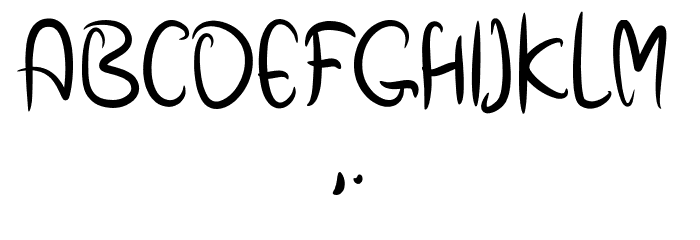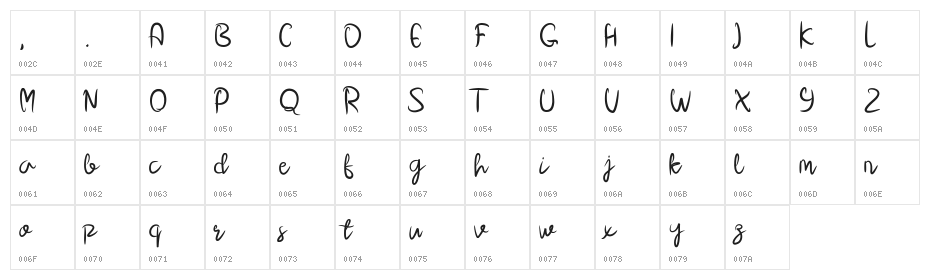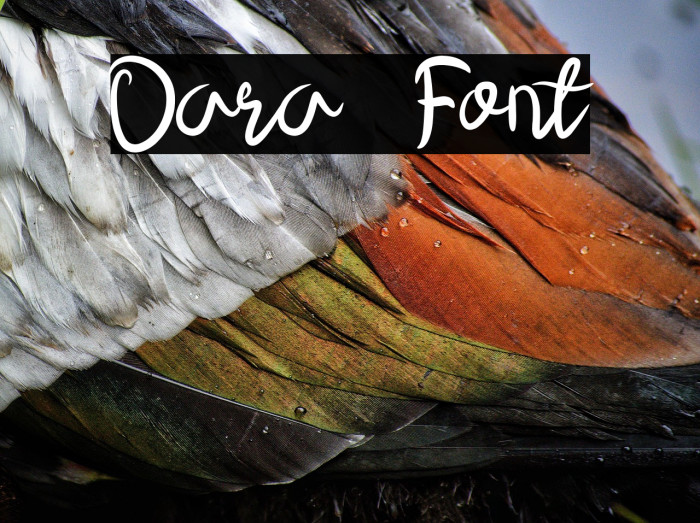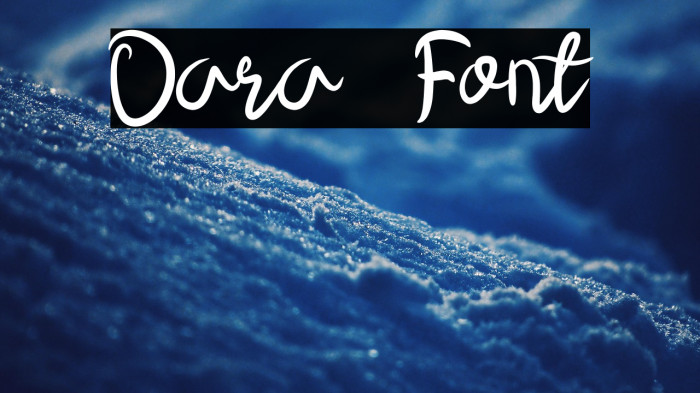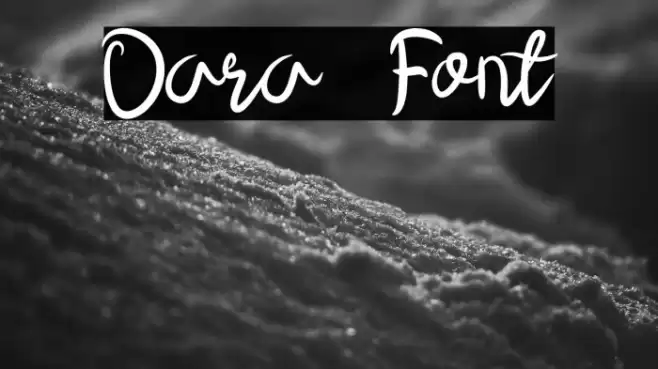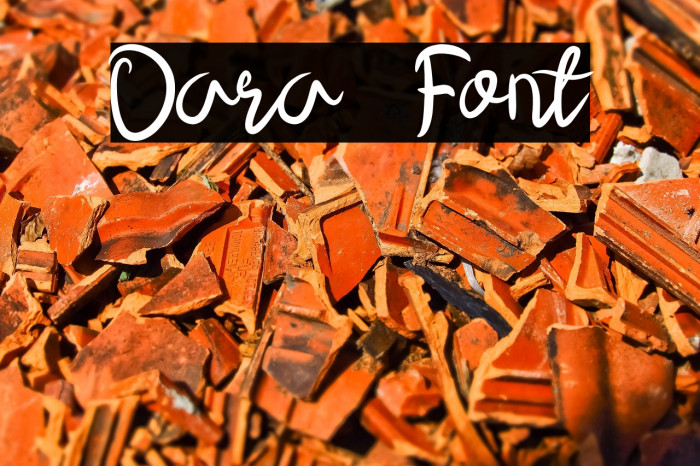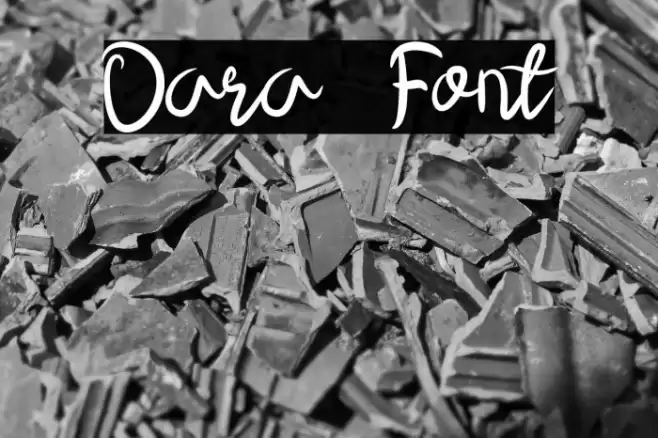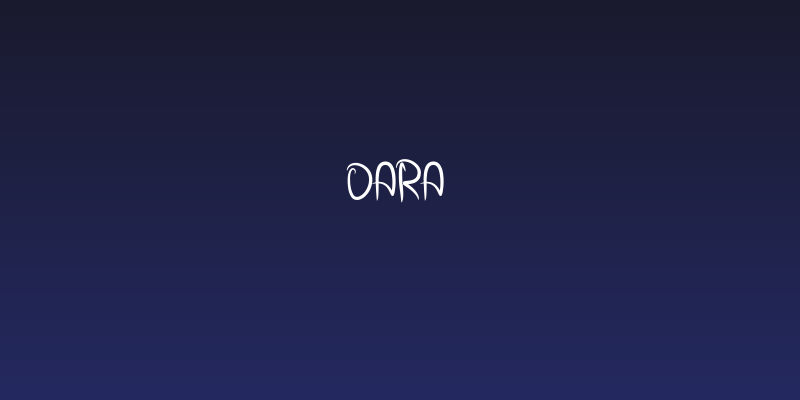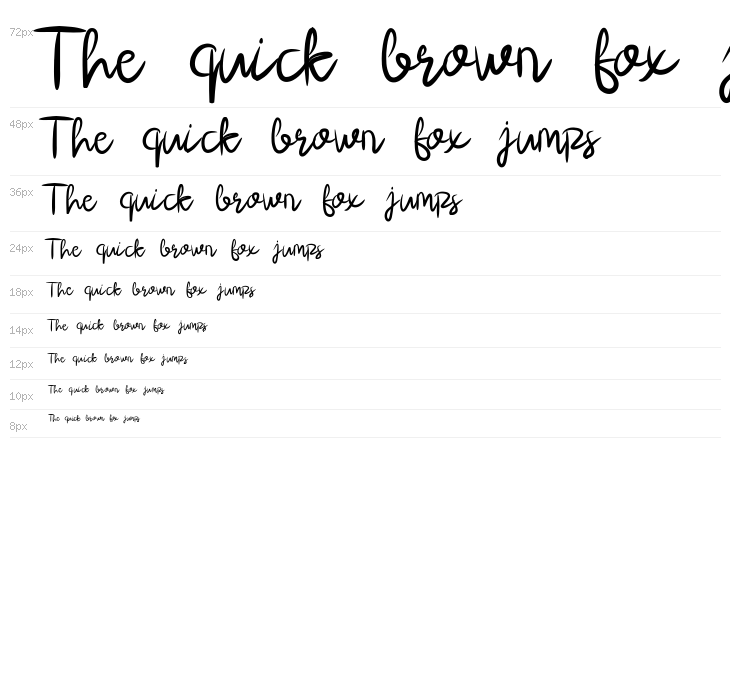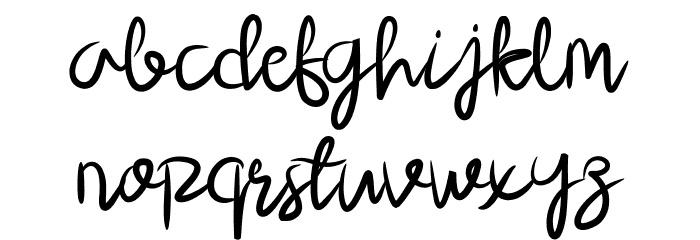
Dara Font
Dara Description
This font exhibits a playful and energetic script style, characterized by its fluid, handwritten appearance. The letters are connected in a cursive manner, with varying stroke widths that add a dynamic and lively feel. The uppercase letters are bold and prominent, while the lowercase letters maintain a consistent flow, enhancing readability. The font's whimsical nature is further emphasized by its slightly irregular baseline, giving it a natural and organic look. This style is perfect for projects that require a personal touch or a creative flair.
| Proposed Projects | Ideal for greeting cards, invitations, branding, and social media graphics. |